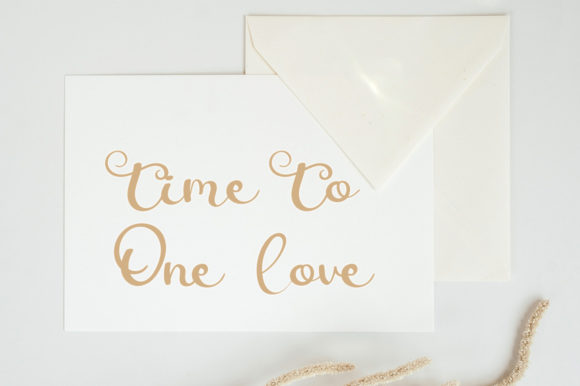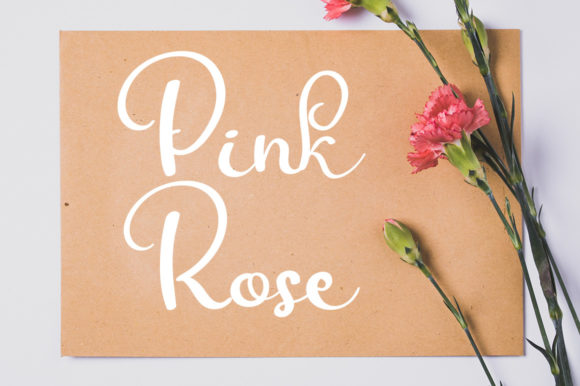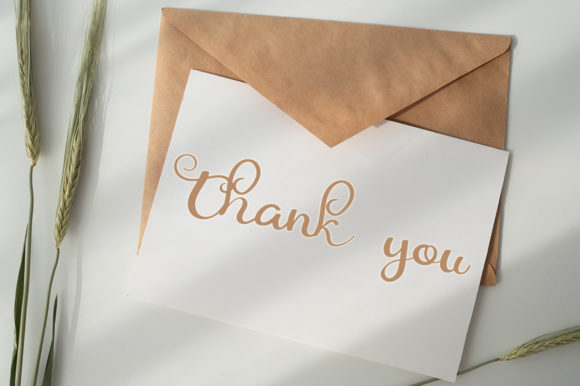
Introduction to Ragnata Font
As a designer, have you ever found yourself in a creative frenzy, pouring over design resources to find the perfect font for your next project? The moment of pure bliss when you finally stumble upon the perfect match is all too familiar for many of us. For those seeking a beautiful and elegant script font, look no further than the Ragnata Font.
This stunning font boasts a fresh, clean, and high-quality design that will elevate any project, whether formal or informal. Its PUA encoding makes it incredibly easy to access all glyphs and swashes, giving you complete control over your design. With its transparent background and free download availability, the Ragnata Font is an invaluable resource for designers looking to add a touch of sophistication to their creative project.
Whether you’re working on a branding project or a wedding invitation, the Ragnata Font is sure to impress. Its elegant and refined design makes it an essential addition to any designer’s toolkit, and its free download availability means you can start using it right away.
Key Features of Ragnata Font
- High-quality design resource for creative projects, perfect for adding a unique touch.
- Unique characteristics include an elegant and modern design, making it suitable for a wide range of applications.
- Perfect for use in graphic design, digital art, and other creative projects where a high-quality font is required.
Honest Review: Ragnata Font
I recently stumbled upon the Ragnata Font, a design resource that caught my attention. At first glance, I was impressed by its unique and quirky design. The font features a mix of modern and vintage elements, making it perfect for creative projects that require a touch of elegance and playfulness.
Here’s what works well with the Ragnata Font:
- ✨ High-quality design: The font is well-crafted and has a professional feel to it.
- ✨ Versatile: It can be used for a wide range of creative projects, from logos to typography-based designs.
- ✨ Transparent background: The font’s transparent background makes it easy to use with various design elements.
- ⚠️ Limited font weights: The font only comes in a few weights, which may not be ideal for designs that require a wide range of font weights.
- ⚠️ Not suitable for small text: The font’s design may not be suitable for small text, as it can become difficult to read.
Overall, I’m impressed with the Ragnata Font’s design and versatility. While it has some limitations, it’s a great resource for designers who are looking for a unique and high-quality font for their creative projects.
Ragnata Font is a high-quality, free design resource ideal for creative projects. With its unique style and transparent background, it’s perfect for adding a touch of elegance to your designs.